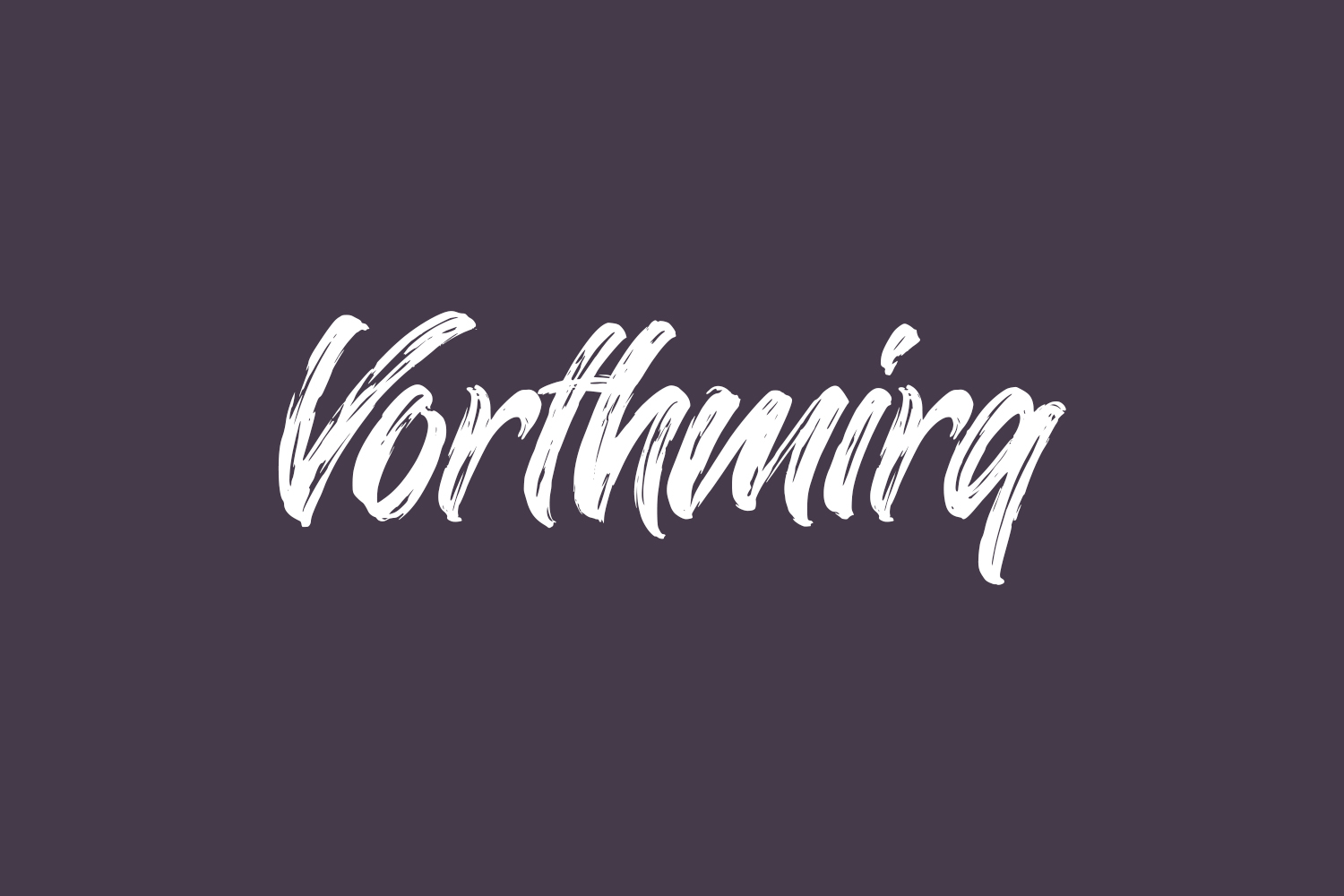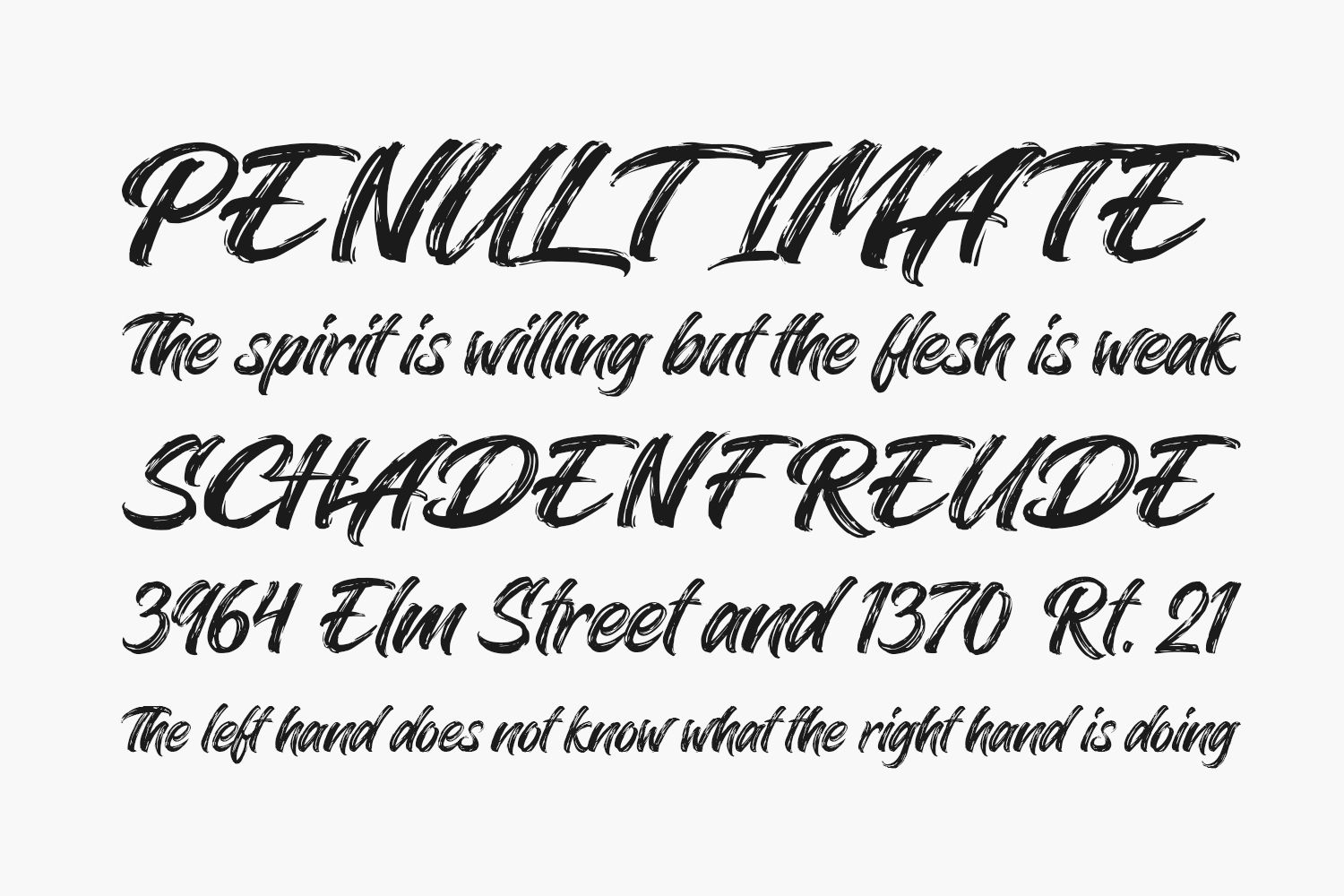
Discover the versatility of Vorthmirq Free Font, a script font crafted with a textured brush, born from the art of digital calligraphy. Ideal for contemporary designs like youth fashion, skateboard brands, quotes, and more, this script font seamlessly blends a modern aesthetic with a dynamic texture. Its flexibility shines through as it effortlessly complements non-feminine designs, making it a perfect choice for a wide range of creative projects. Elevate your visual expression with the unique character of Vorthmirq. Download the font for free if you need it for personal use or purchase the full version for commercial use.